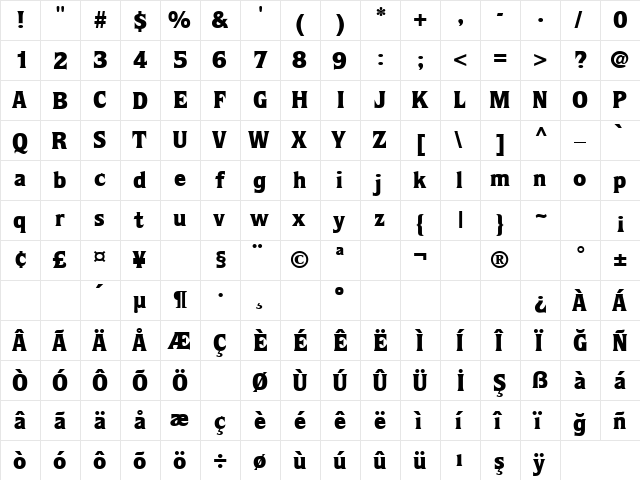
TR DoorsBlack Regular
TR DoorsBlack offers clean, dependable letterforms without strong stylistic allegiance, making it a practical choice for designers who need flexibility.